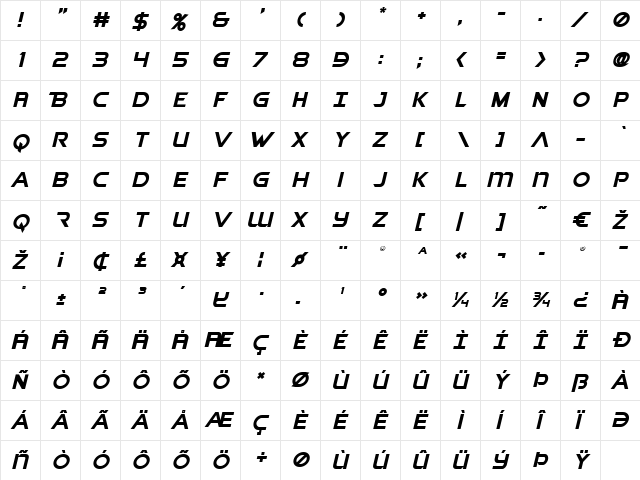
Beyblade Metal Fight Regular Regular
Design Context for Beyblade Metal Fight Regular Typeface
Beyblade Metal Fight Regular is a composed and adaptable typeface that performs quietly and consistently across a wide range of design contexts.
Pro Tip: Use Beyblade Metal Fight Regular in both headline and body roles to test its range before committing to a single application.